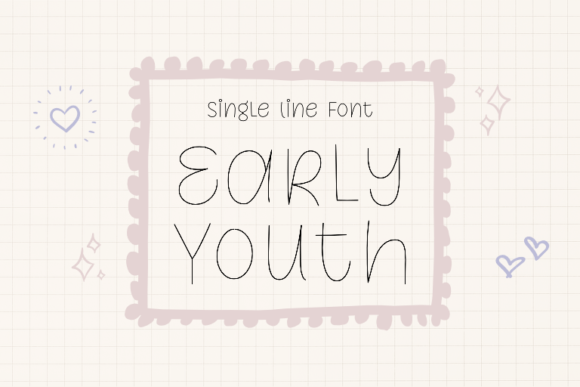
Introducing Early Youth Font: The Perfect Blend of Elegance and Playfulness
In the world of typography, fonts play a crucial role in conveying the tone and personality of a brand or design. With the vast array of fonts available, it can be challenging to find one that stands out from the rest. However, if you’re looking for a unique display single-line font that captures beauty and diversity, look no further than Early Youth Font. In this article, we’ll delve into the features and benefits of Early Youth Font, and explore how it can elevate your designs to the next level.
What is Early Youth Font?
Early Youth Font is a meticulously crafted display font that embodies the fluidity and natural flow of handwriting while maintaining a clean and polished appearance. Each character is designed to evoke a sense of elegance and playfulness, making it perfect for a wide range of projects. Whether you’re working on branding, packaging, social media graphics, or any other design endeavor, Early Youth Font is sure to make a lasting impression.
Key Features of Early Youth Font
- Unique Display Font: Early Youth Font is a one-of-a-kind display font that is sure to grab attention.
- Elegant yet Playful Style: The font’s design combines elegance and playfulness, making it perfect for a variety of projects.
- Handwriting-Inspired: Each character is crafted to evoke the fluidity and natural flow of handwriting.
- Clean and Polished Appearance: Despite its handwriting-inspired design, Early Youth Font maintains a clean and polished appearance.
- Single-Line Font: The font is designed as a single-line font, making it easy to use and versatile.
Benefits of Using Early Youth Font
So, why choose Early Youth Font for your design projects? Here are just a few benefits of using this unique font:
- Stand Out from the Crowd: With its unique design, Early Youth Font is sure to make your designs stand out from the crowd.
- Versatility: The font’s elegant yet playful style makes it perfect for a wide range of projects, from branding and packaging to social media graphics and more.
- Ease of Use: As a single-line font, Early Youth Font is easy to use and can be easily integrated into your design workflow.
- High-Quality Design: Each character is meticulously crafted to ensure a high-quality design that will impress your audience.
Use Cases for Early Youth Font
So, how can you use Early Youth Font in your design projects? Here are a few ideas to get you started:
- Branding: Use Early Youth Font to create a unique and memorable brand identity.
- Packaging: Add a touch of elegance and playfulness to your packaging designs with Early Youth Font.
- Social Media Graphics: Use the font to create eye-catching social media graphics that will grab attention.
- Advertising: Early Youth Font is perfect for use in advertising, where a unique and attention-grabbing font can make all the difference.
Tips for Using Early Youth Font
To get the most out of Early Youth Font, here are a few tips to keep in mind:
- Experiment with Different Sizes: Early Youth Font can be used at a variety of sizes, so don’t be afraid to experiment to find the perfect size for your design.
- Pair with Other Fonts: Consider pairing Early Youth Font with other fonts to create a unique and visually appealing design.
- Use in Combination with Images: The font’s elegant yet playful style makes it perfect for use in combination with images.
In conclusion, Early Youth Font is a unique and versatile display font that is perfect for a wide range of design projects. With its elegant yet playful style, high-quality design, and ease of use, it’s an excellent choice for designers looking to elevate their designs to the next level. Whether you’re working on branding, packaging, social media graphics, or any other design endeavor, Early Youth Font is sure to make a lasting impression.